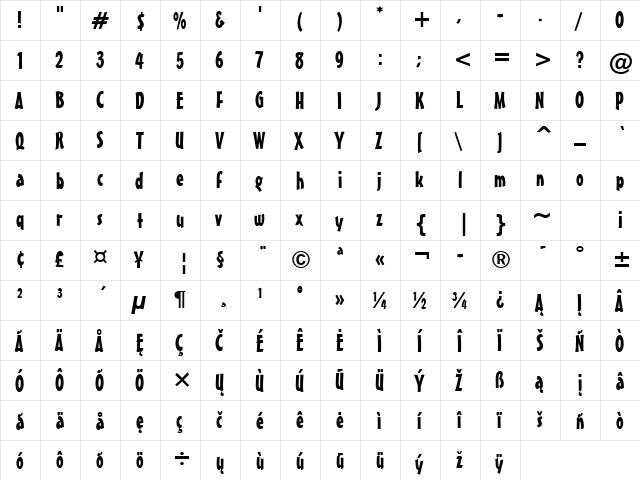
JS_Mister Earl Regular
Design Context for JS_Mister Earl Typeface
JS_Mister Earl takes a measured approach to typography — its balanced proportions and neutral character make it a reliable workhorse for both digital and print work.
Pro Tip: Use JS_Mister Earl in both headline and body roles to test its range before committing to a single application.